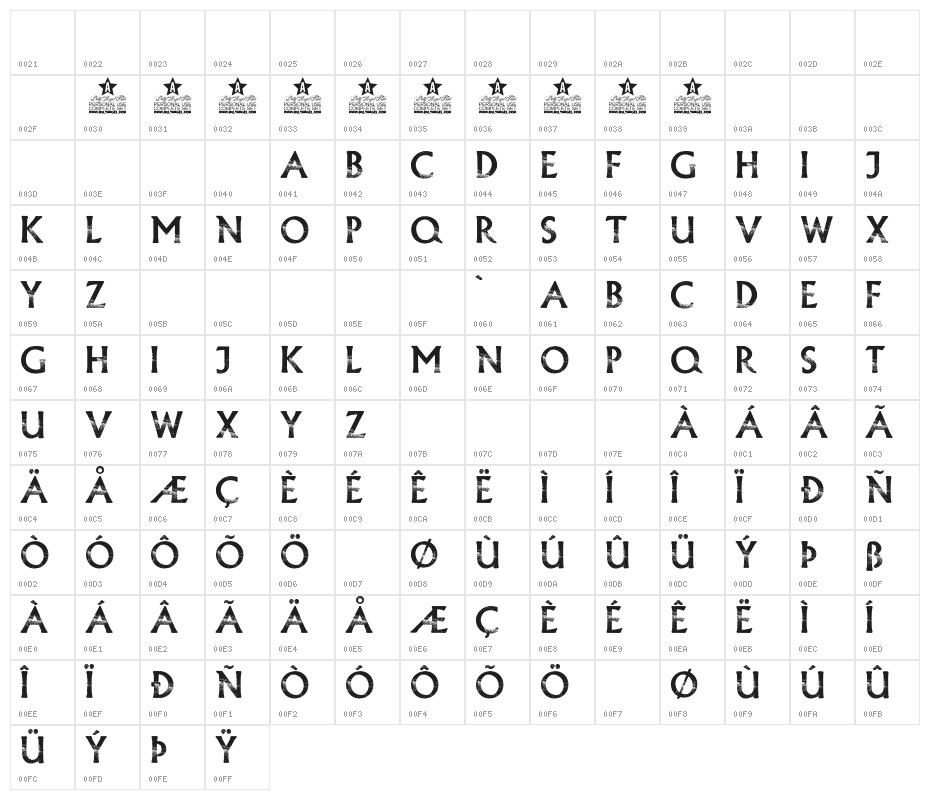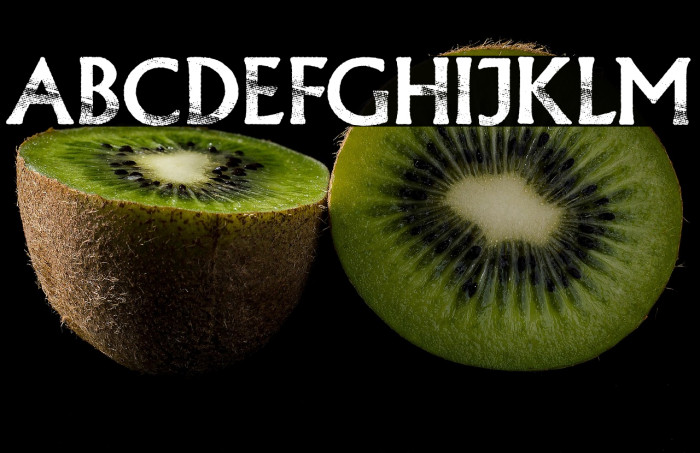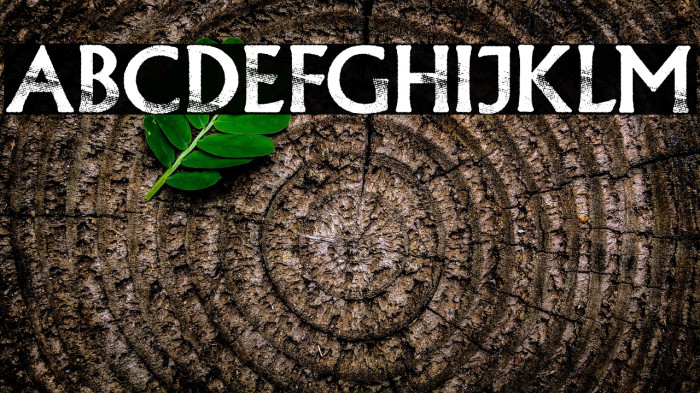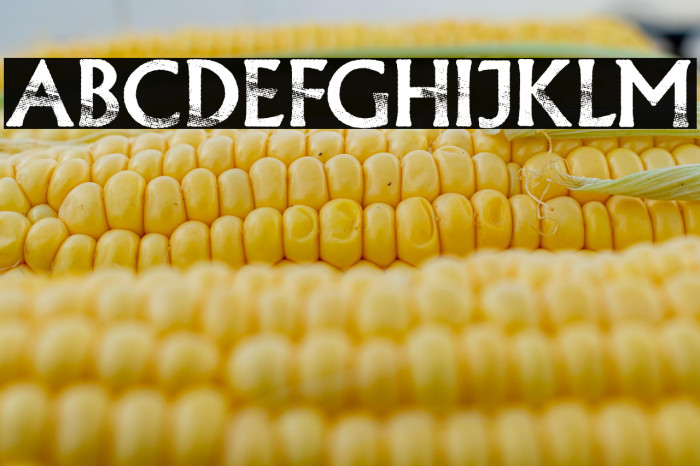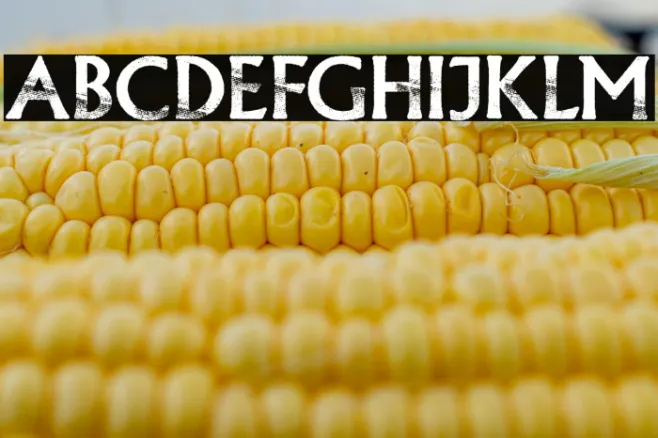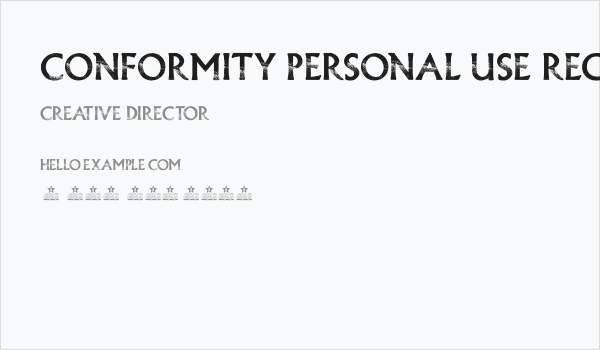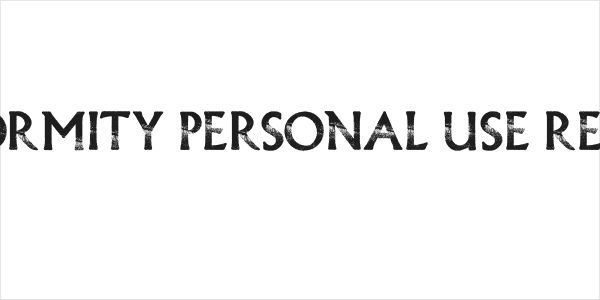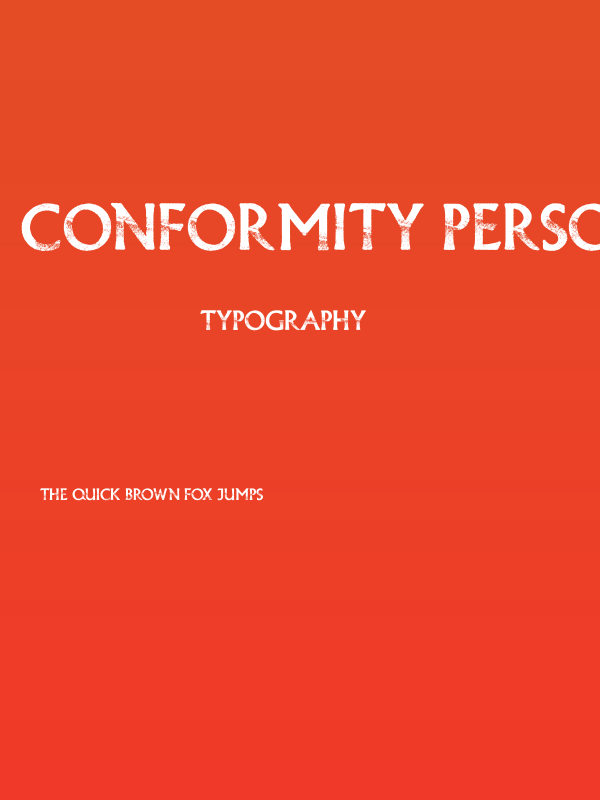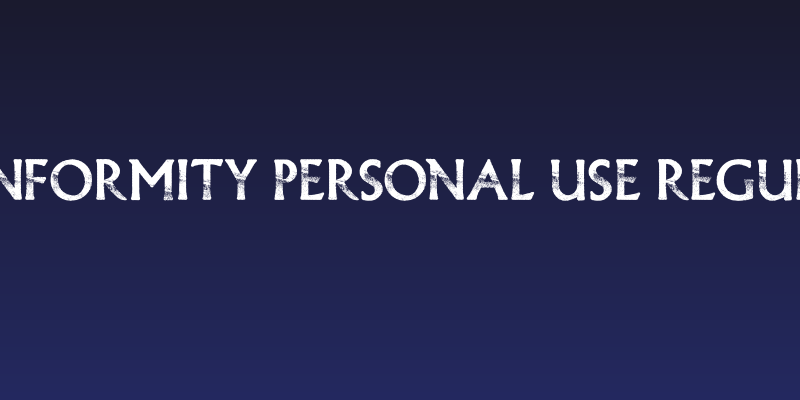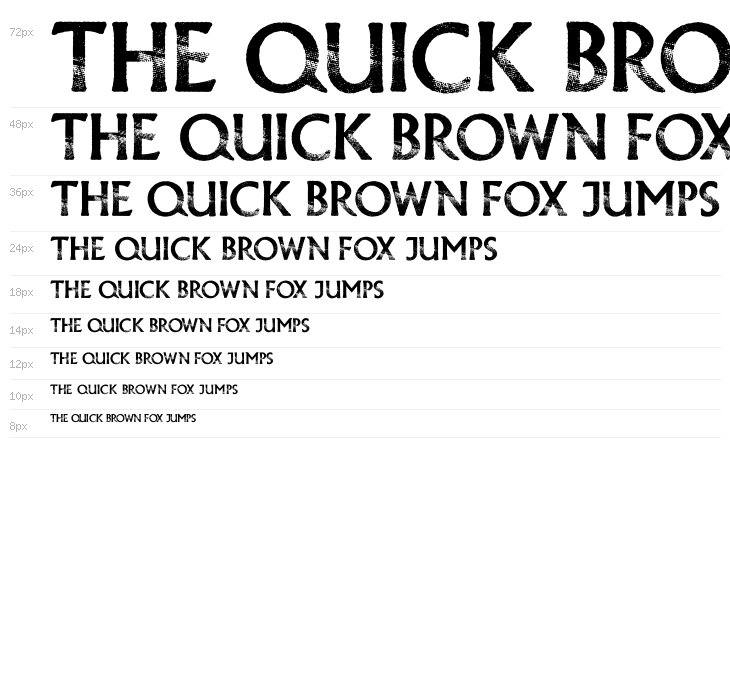
CONFORMITY PERSONAL USE Regular Font
CONFORMITY PERSONAL USE Regular Description
This font features a bold, textured style that gives it a distressed, vintage appearance. The uppercase letters are strong and impactful, with a slightly rough edge that adds character. The design is reminiscent of old printing techniques, where ink distribution was uneven, creating a unique and artistic look. The font maintains a consistent weight throughout, providing a balanced and cohesive appearance. Its distinct style makes it suitable for projects that require a touch of nostalgia or a handcrafted feel. The spacing between characters is normal, ensuring readability while maintaining its decorative charm.
| Proposed Projects | Ideal for posters, branding, packaging, and any design needing a vintage or handcrafted aesthetic. |